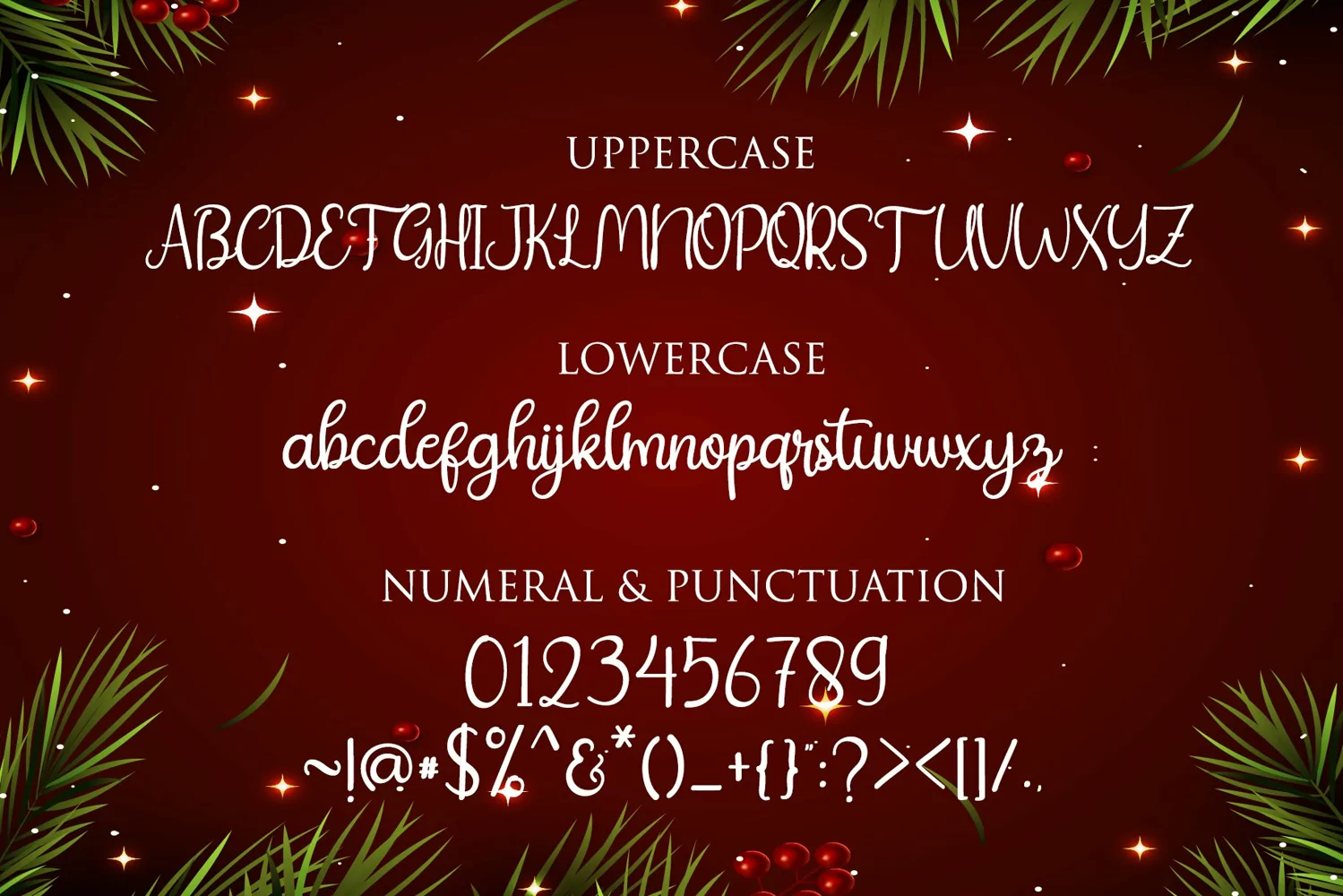
Christday
Proudly presents our font Christday.
Christday is mazing hand lettering look attractive and natural!
Every single letters have been carefully crafted to make your text looks beautiful.
This font includes 298glyphs, including 99 alternates character with swashes.
It has over 60 extended Latin characters for language support.
This font is suitable for invitation, branding, advertising, mugs, christmas cards, poster design, SVGs, Canva Templates, Sublimation Designs, Monogram SVG, Paper Cutting Templates, Embroidery Digital Designs,
Clipart, Textures, Laser Cutting, Scene Creators, Mockups, Backgrounds, Illustrator add ons etc,
Multilingual Support
Alternate Character
Ligature Character